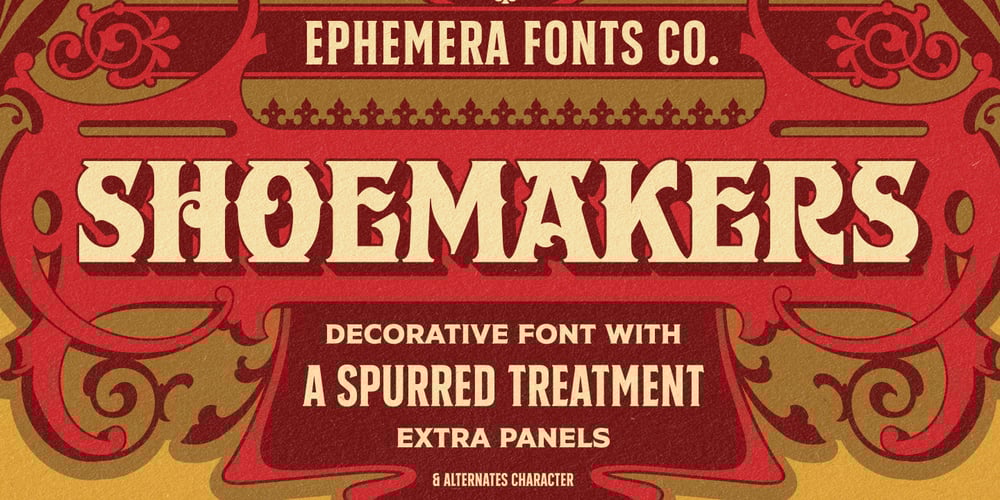
Ephemera Shoemakers
Ephemera Shoemakers font
Ephemera Shoemakers Font Family was designed by Gilang Purnama Jaya and published by Ephemera Fonts. Ephemera Shoemakers contains 2 styles and family package options. Ephemera Shoemakers is a bold font with spurred serif & medium contrasted, vintage inspiration with letters in all caps. Traditionally this type of decorative font that emerged in Italy, France & England in the nineteenth century were used in large headlines and posters that were closely related to circus shows, carnival or environments of the Far West American. Perfect for signs, posters, handbills and other large format advertising.Ephemera Shoemakers Pdf Specimens